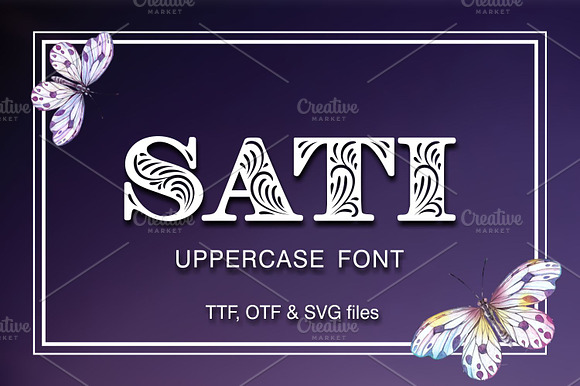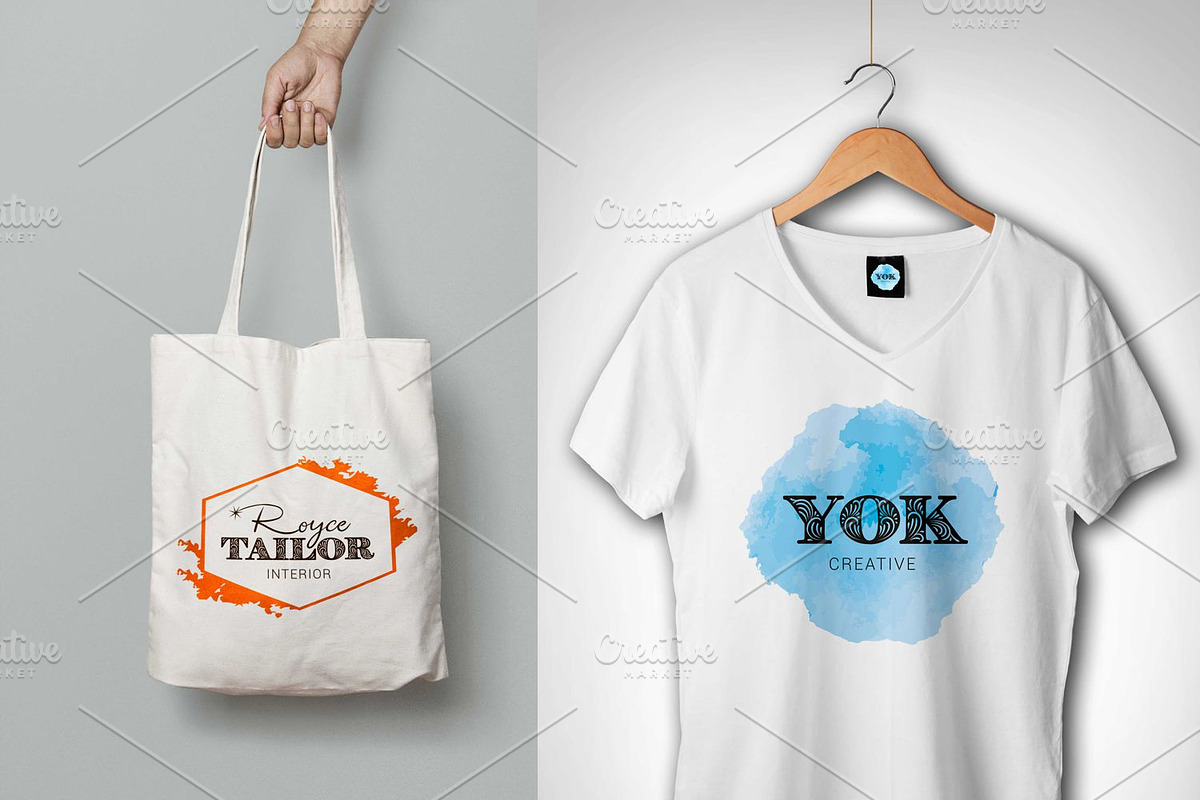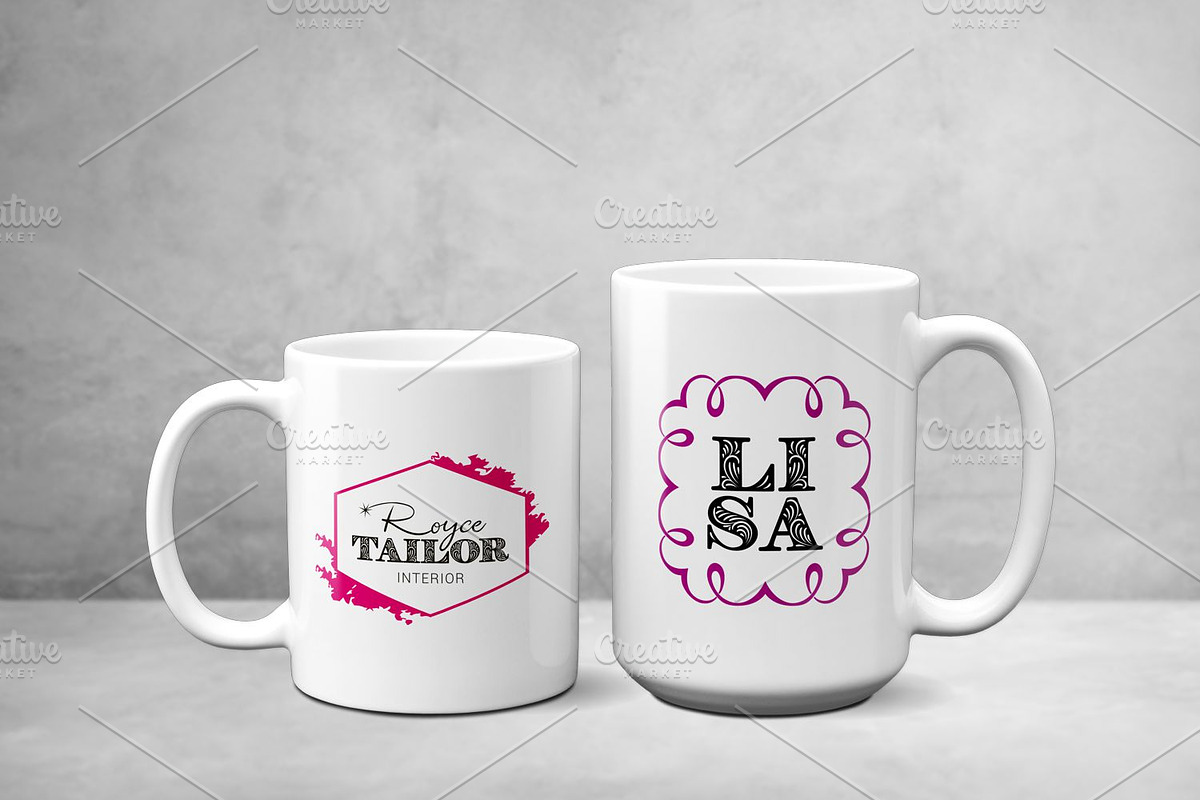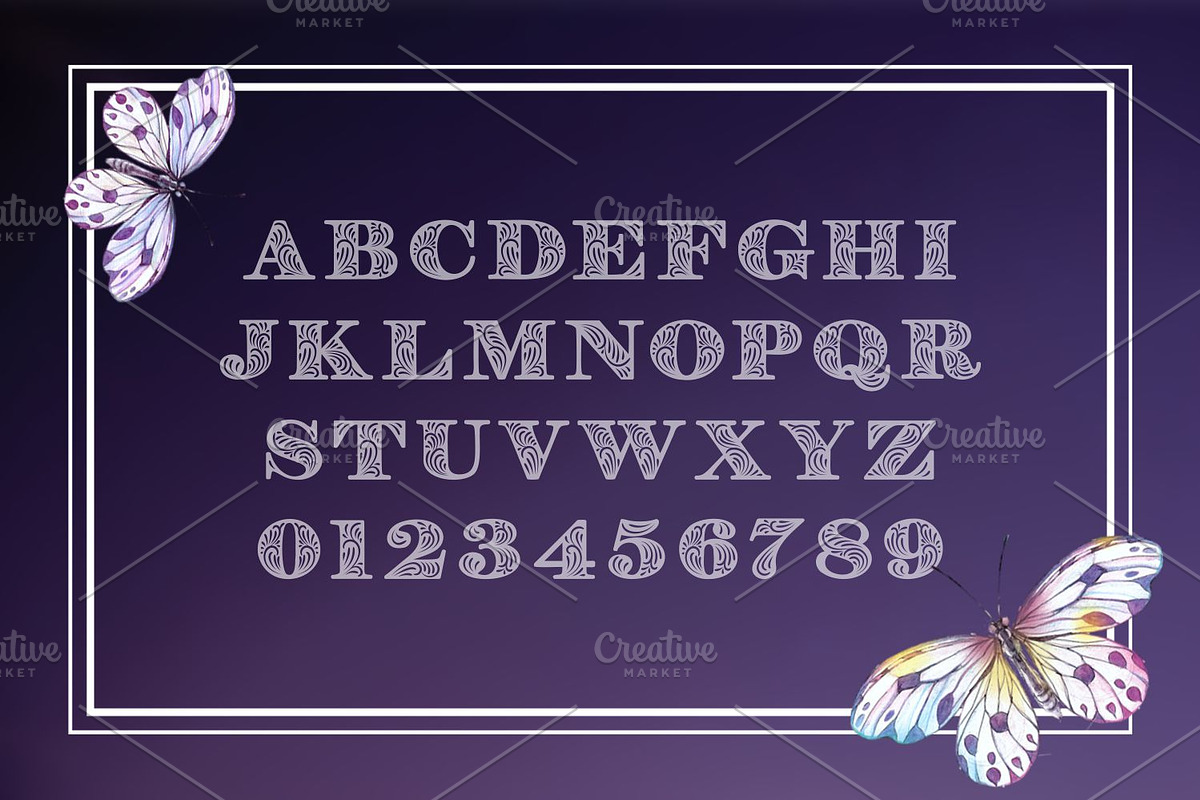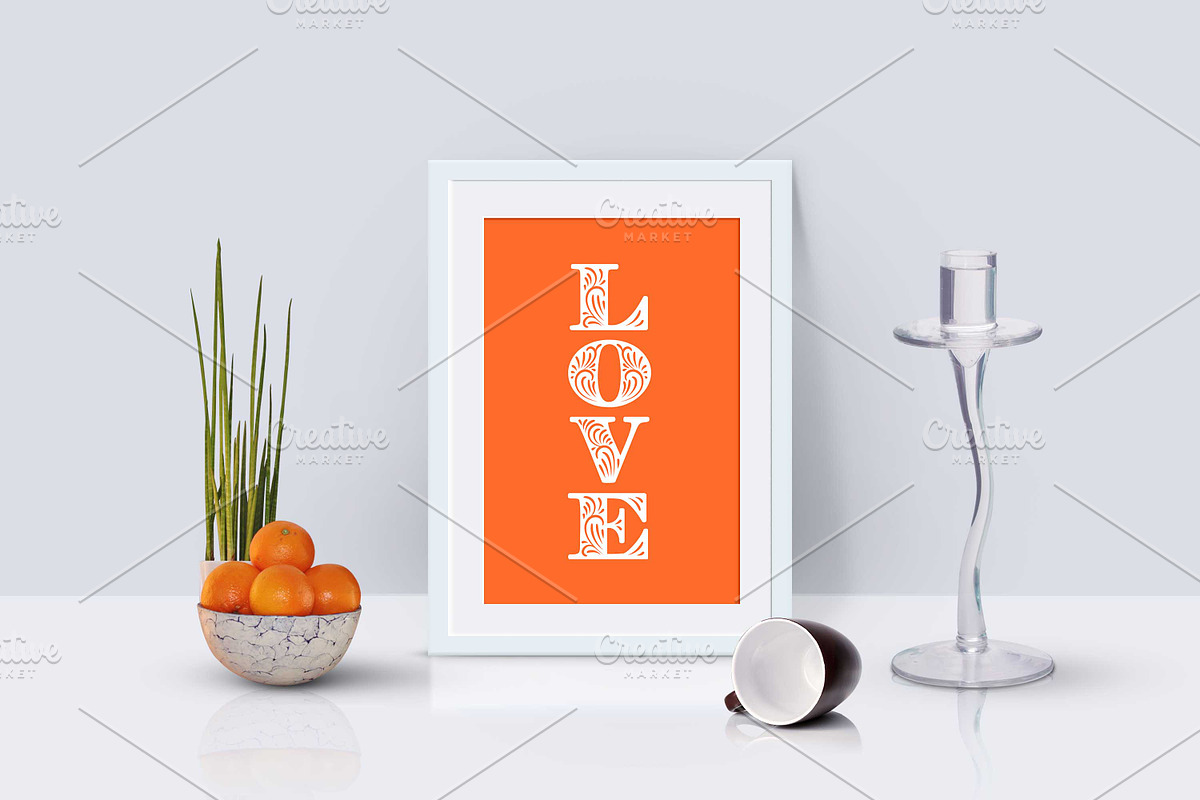
Sati
Sati is a carefully hand crafted decorative font. Capitals and numbers only - as picured above. Great for monograms, logos, branding, packages and more.
- Great for monograms, logos, branding, packages and more.
Sati by Digital Typeface Studio fits naturally into Branding, posters, packaging, typography.